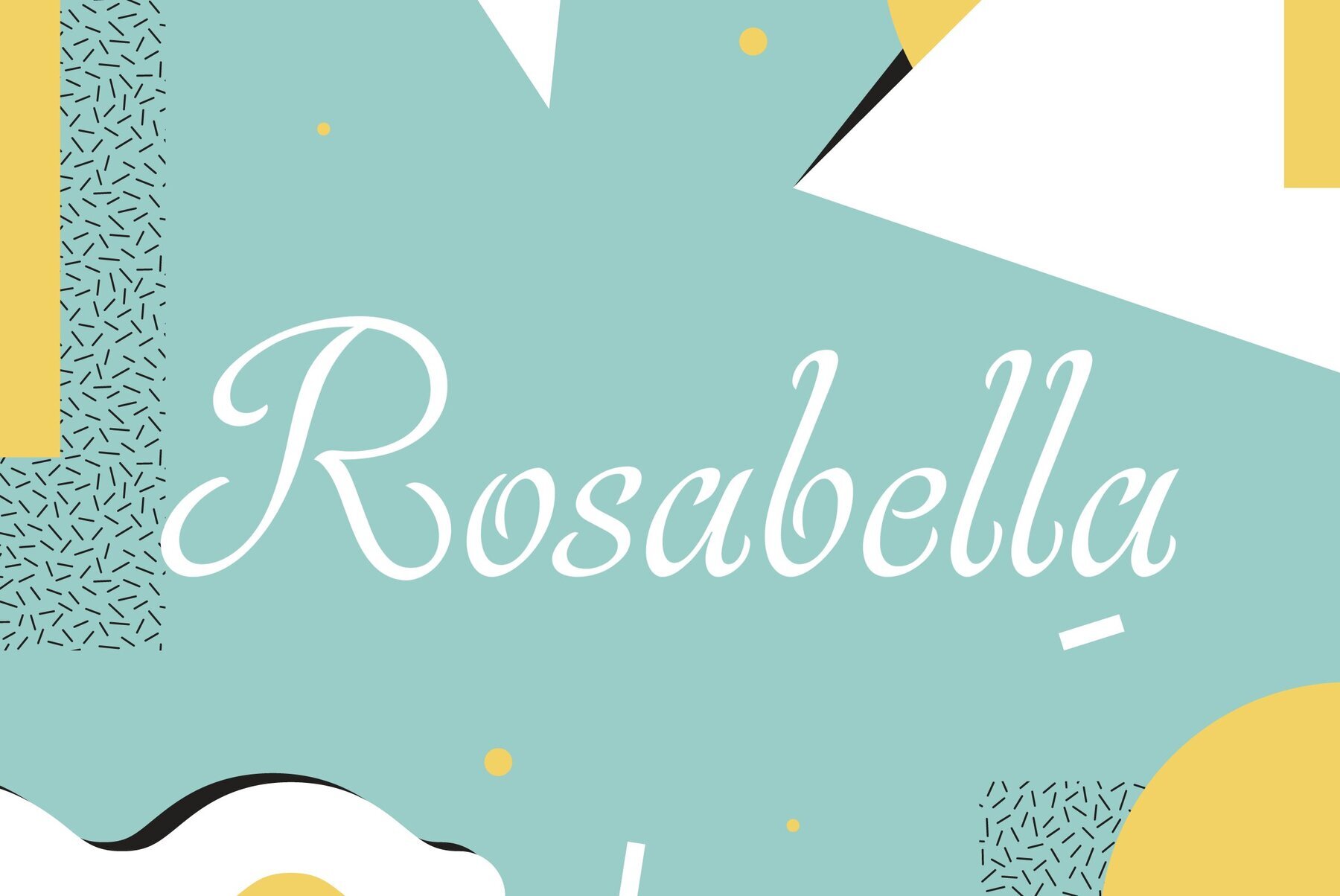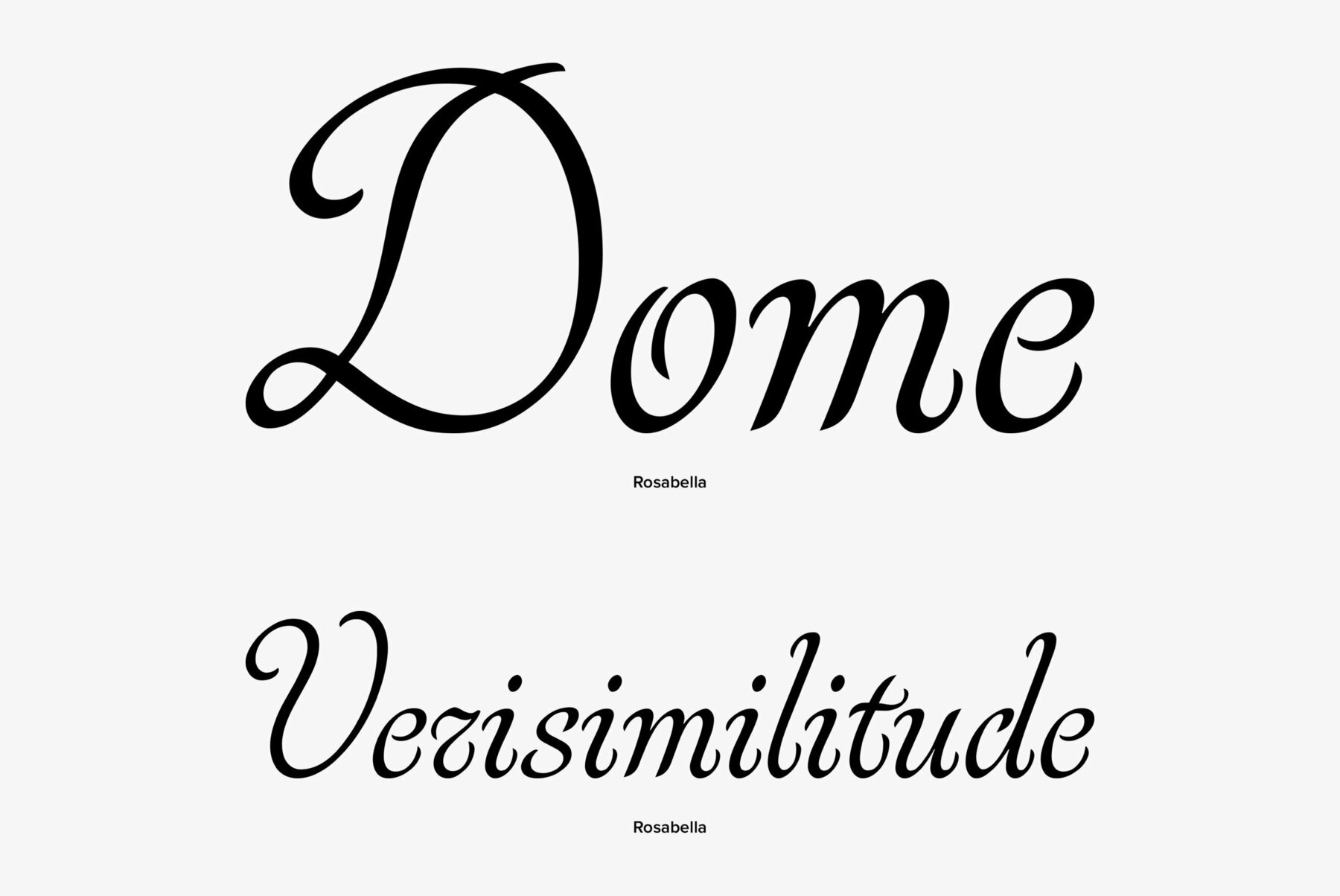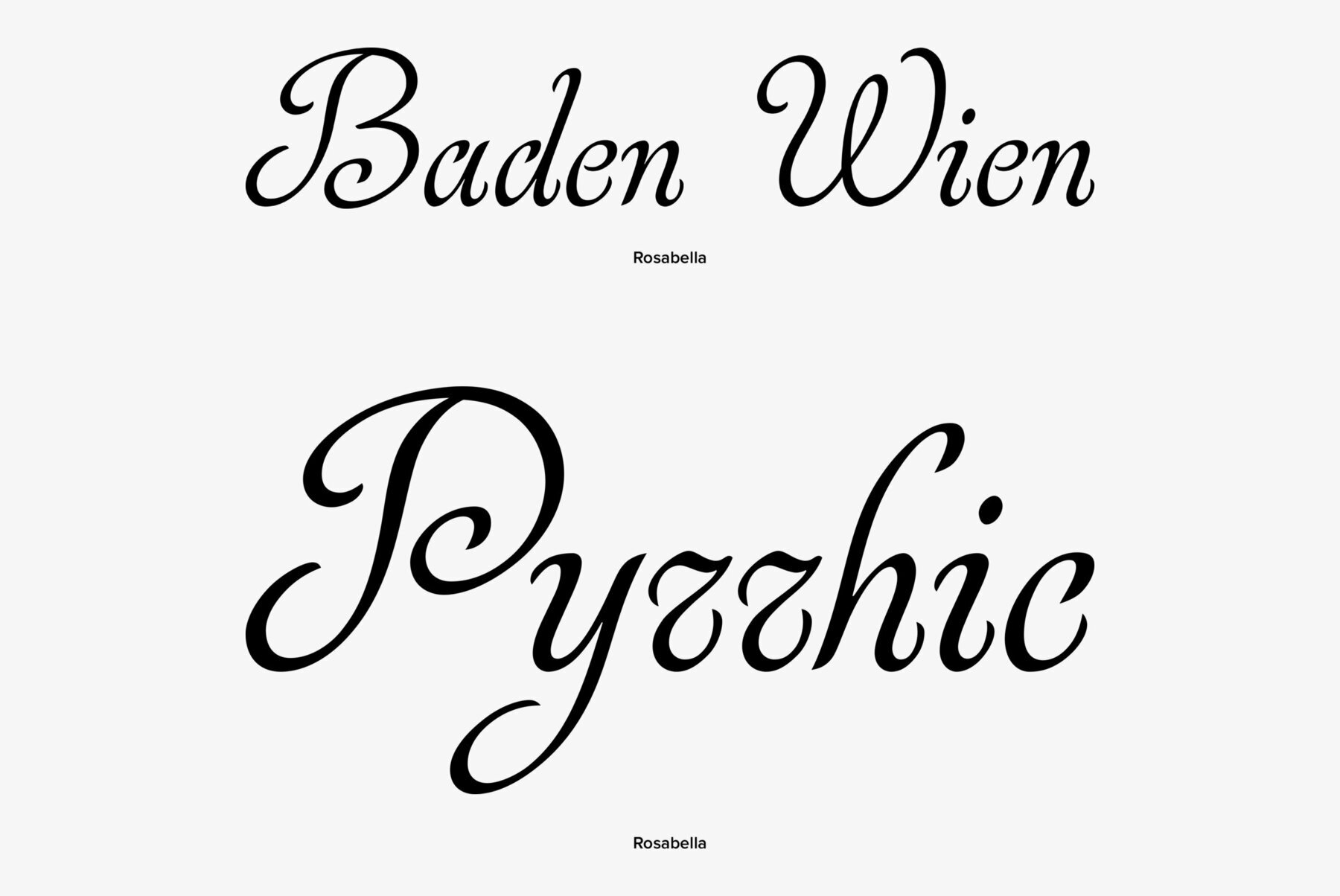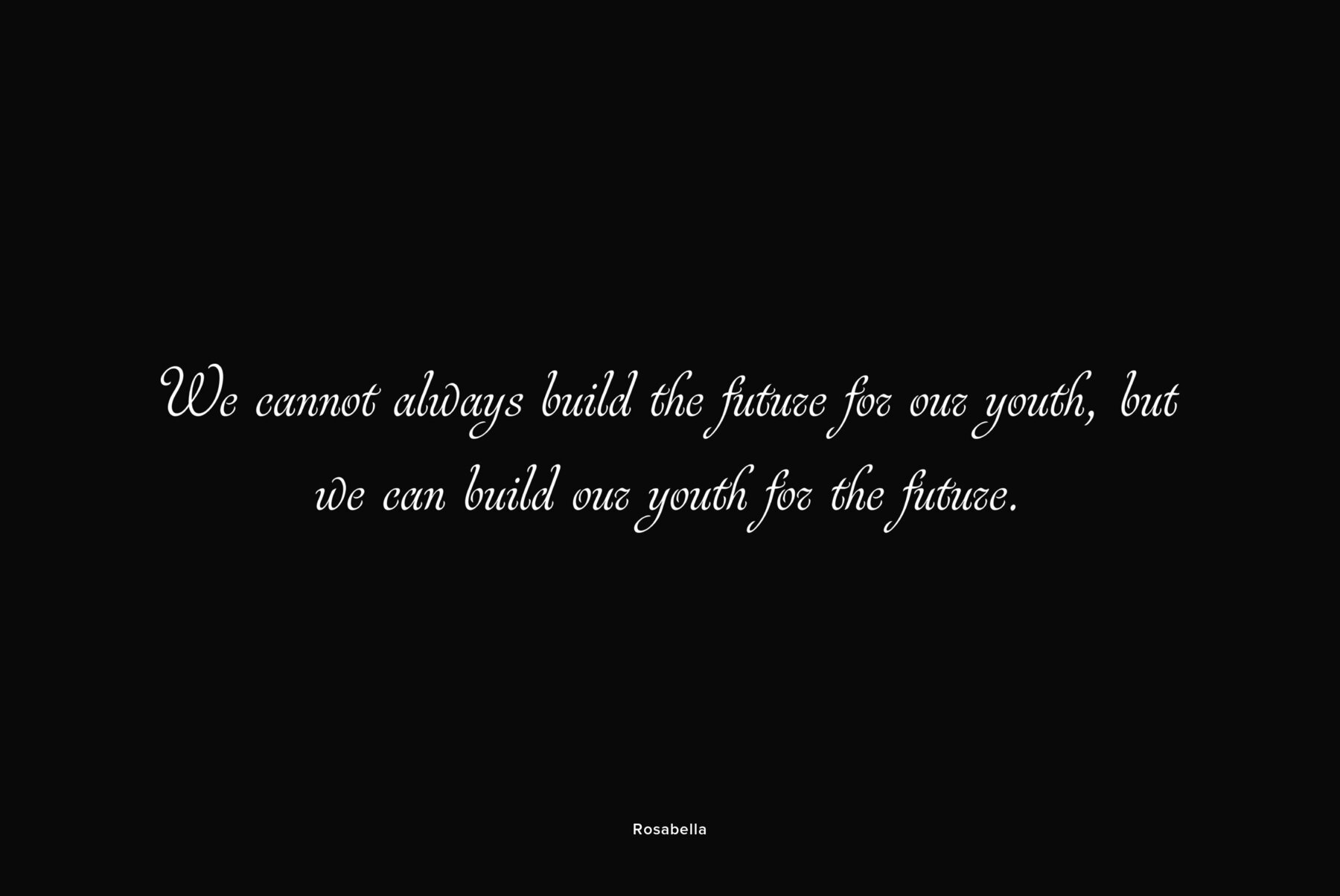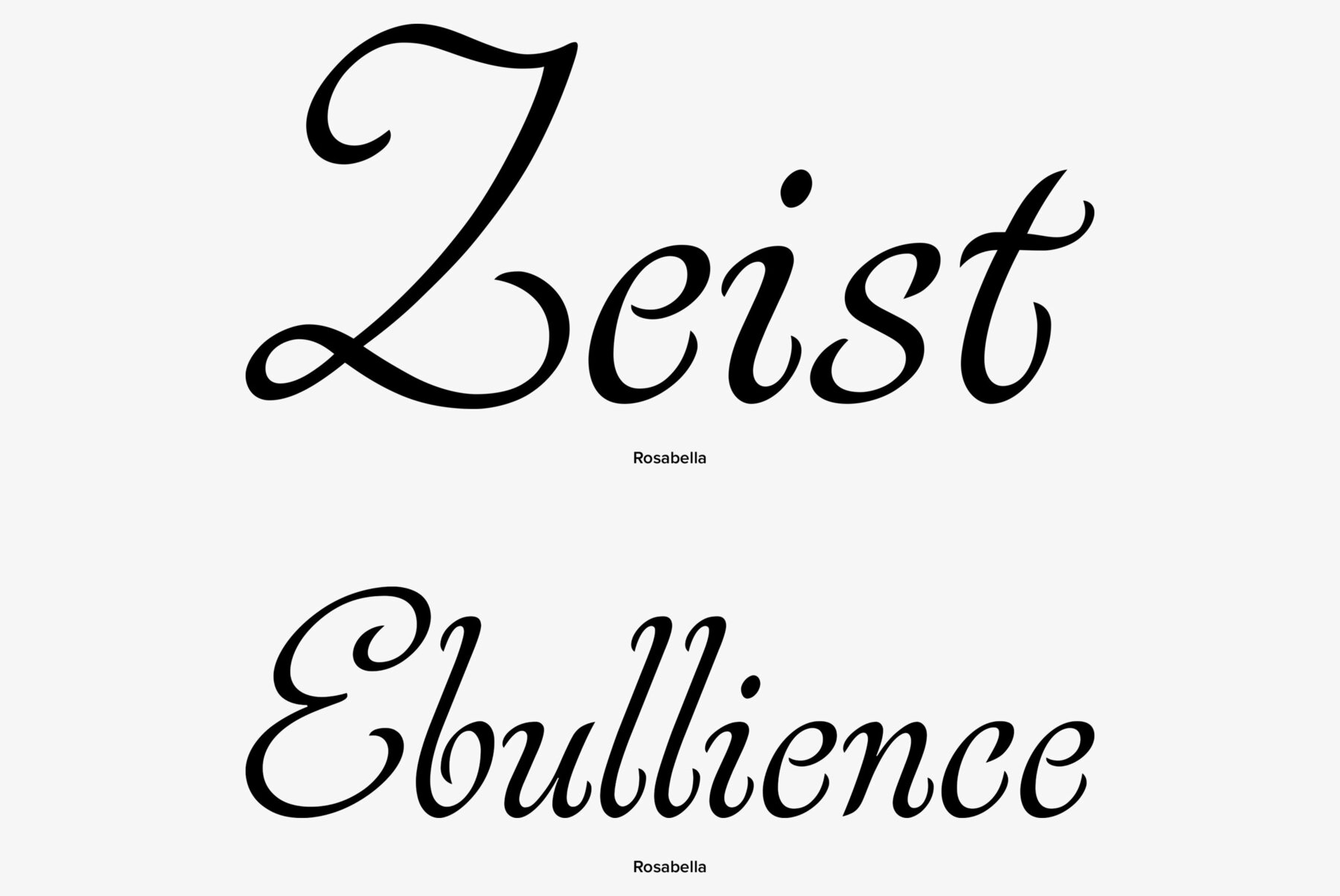
Rosabella
Rosabella is a script typeface with a plenty of decorative details -- flourishes, swashes, twists and other elements, which impart to the face a gorgeous festive look. A big number of alternates and ligatures as it’s usual now for such kind of fonts makes it possible to imitate a live calligraphic writing. Lower case letters are divided into several stylistic sets from relatively modest variants to the most decorative contextually dependent swashed shapes. Besides there are two sets of upper case letters -- the second one contains larger and more complex shapes. Letters from the different stylistic sets can be used in wide variety of combinations with the different levels of embellishments. Rosabella was designated for display matters, greetings and advertising. Design by Isabella Chaeva. Released by ParaType in 2012.